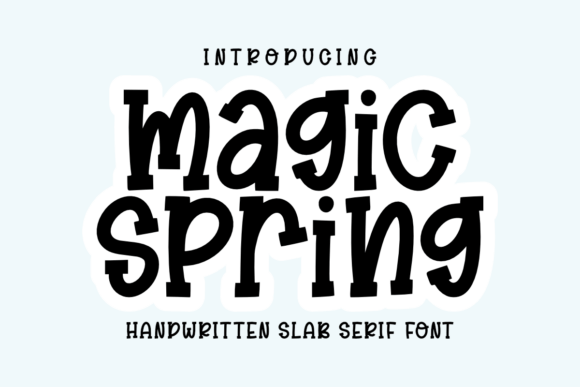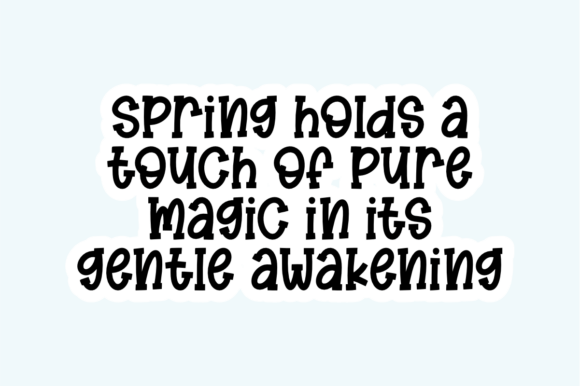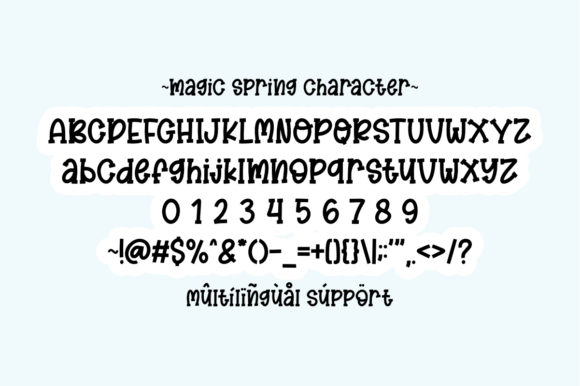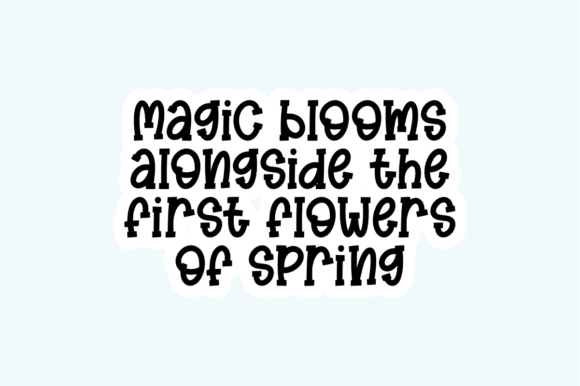
Magic Spring Font: Cute Slab Serif for Cricut & DIY Projects
About the Magic Spring Font
Add a touch of class to your work with the Magic Spring Font, a truly exceptional typeface. Magic Spring is a cute and playful slab serif font, perfect for planners, stickers, cards, quotes, and craft projects. Ideal for creative moms who love DIY, journaling, and Cricut crafts!
Its playful slab serifs make Magic Spring ideal for headlines, short-form text, and branding elements requiring a touch of whimsy. It excels in packaging design for children’s products or craft supplies, and on social media graphics where its friendly personality shines. However, its relatively high x-height and bold strokes make it less suitable for body text or UI elements requiring high readability.
Magic Spring pairs well with clean sans-serif fonts like Open Sans for a balanced contrast, or a delicate script font such as Great Vibes to enhance its playful nature. For a more modern feel, consider pairing it with a geometric sans-serif like Montserrat.
The overall personality is cheerful and approachable, making it a great choice for projects targeting younger audiences or those emphasizing creativity and fun.
Magic Spring Font Usage Examples
Magic Spring Font Example